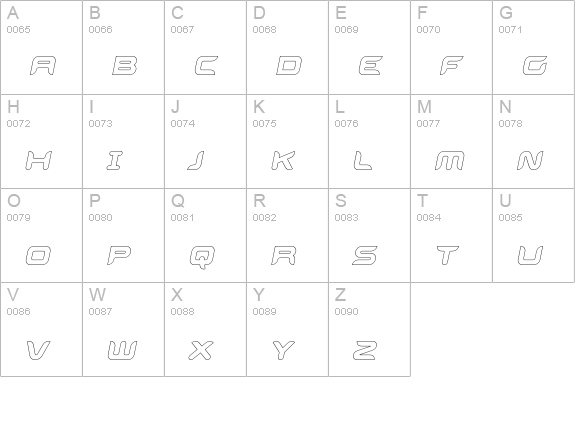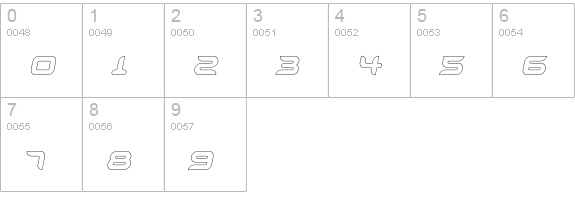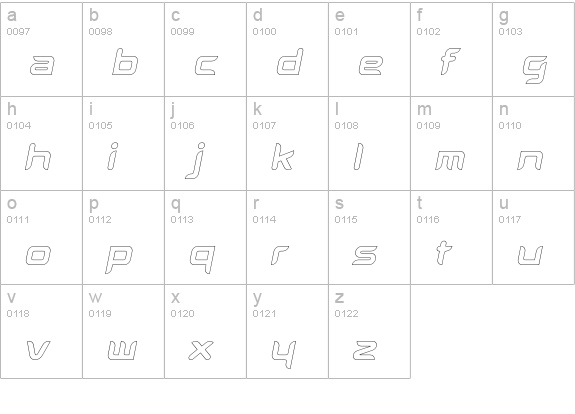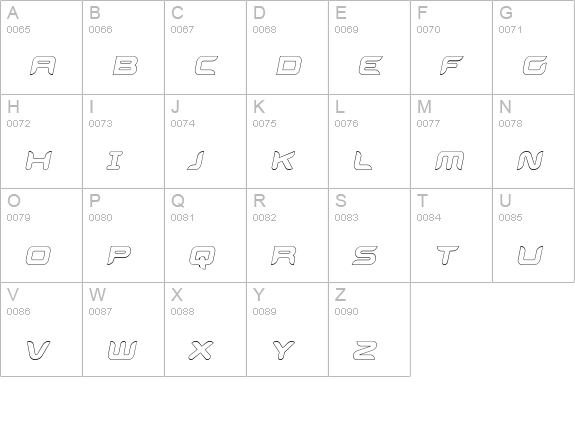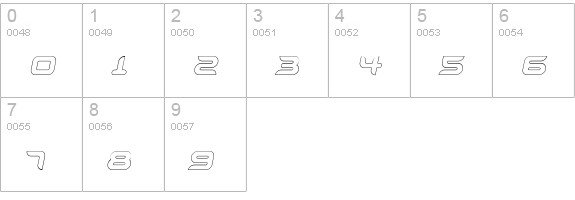
Aura-OutlineOblique Font Details
Aura-OutlineOblique is a striking and modern font that exudes elegance and sophistication. Its unique oblique design adds a touch of flair to any project, making it perfect for a wide range of applications including branding, advertising, and editorial design. The sleek lines and sharp angles of this font create a contemporary and stylish look that is sure to make a statement. What makes Aura-OutlineOblique even more appealing is that it is available for free download at FontsMarket.com. This means that you can easily access this high-quality font without any cost, making it a fantastic option for both personal and commercial projects. Whether you're looking to add a touch of sophistication to your next design or simply want to experiment with a new typeface, Aura-OutlineOblique is the perfect choice. Download it today and elevate your design projects to the next level.